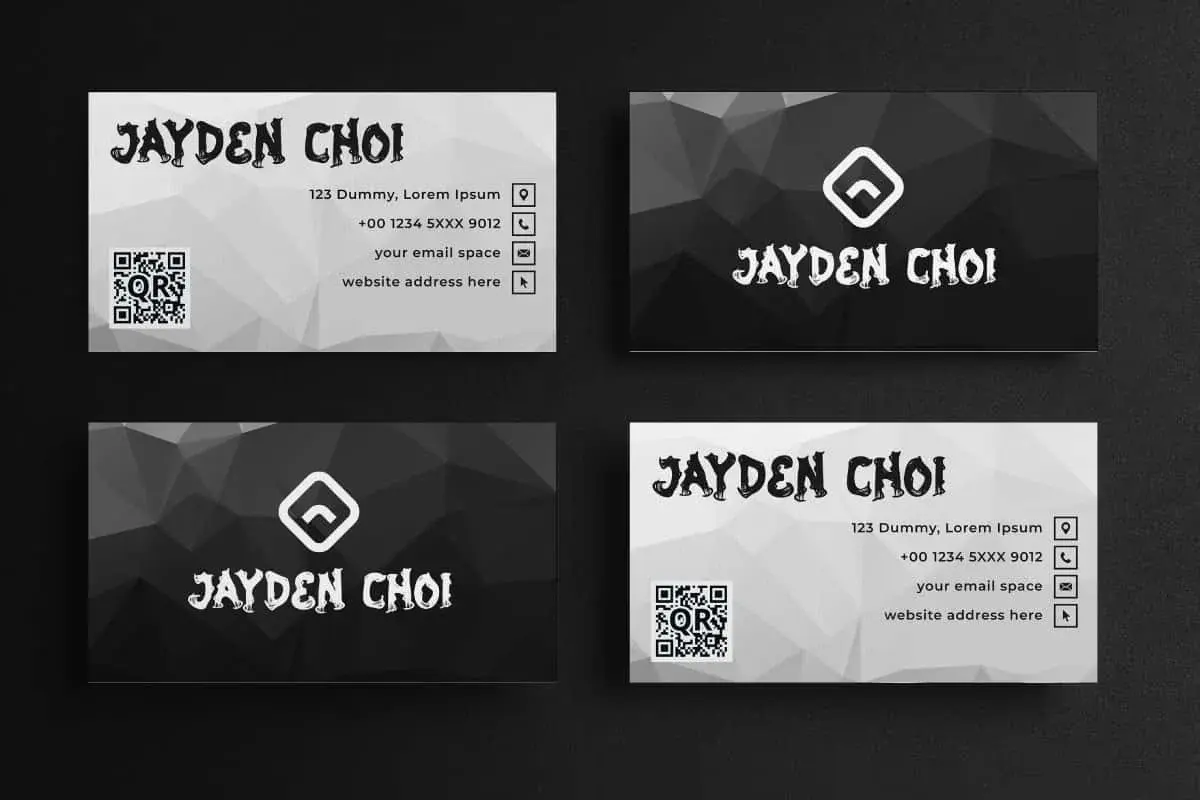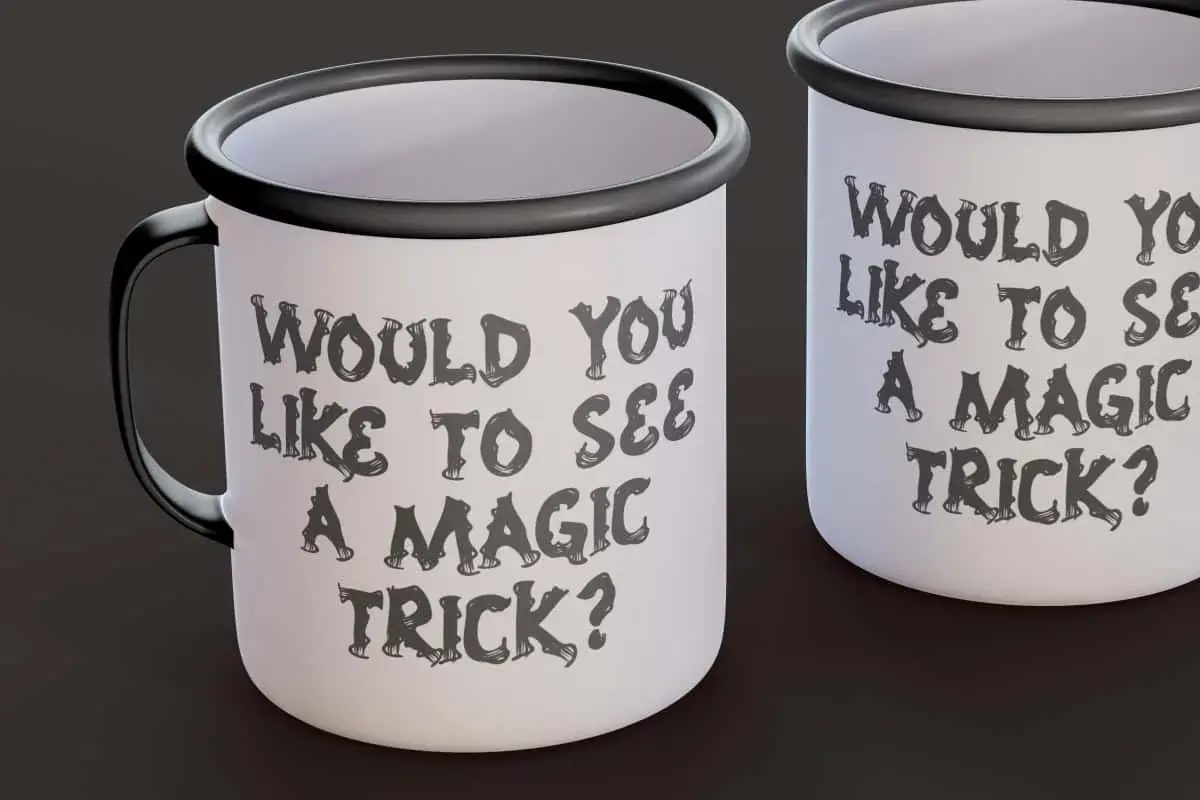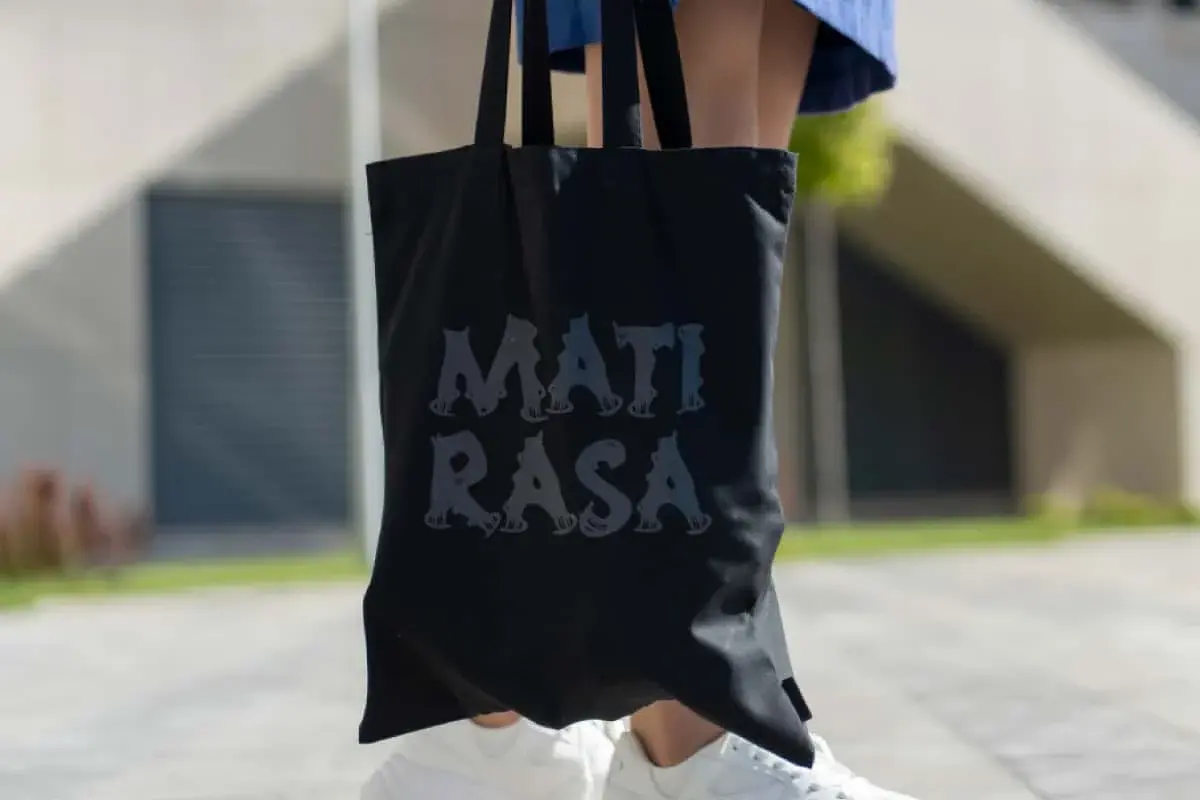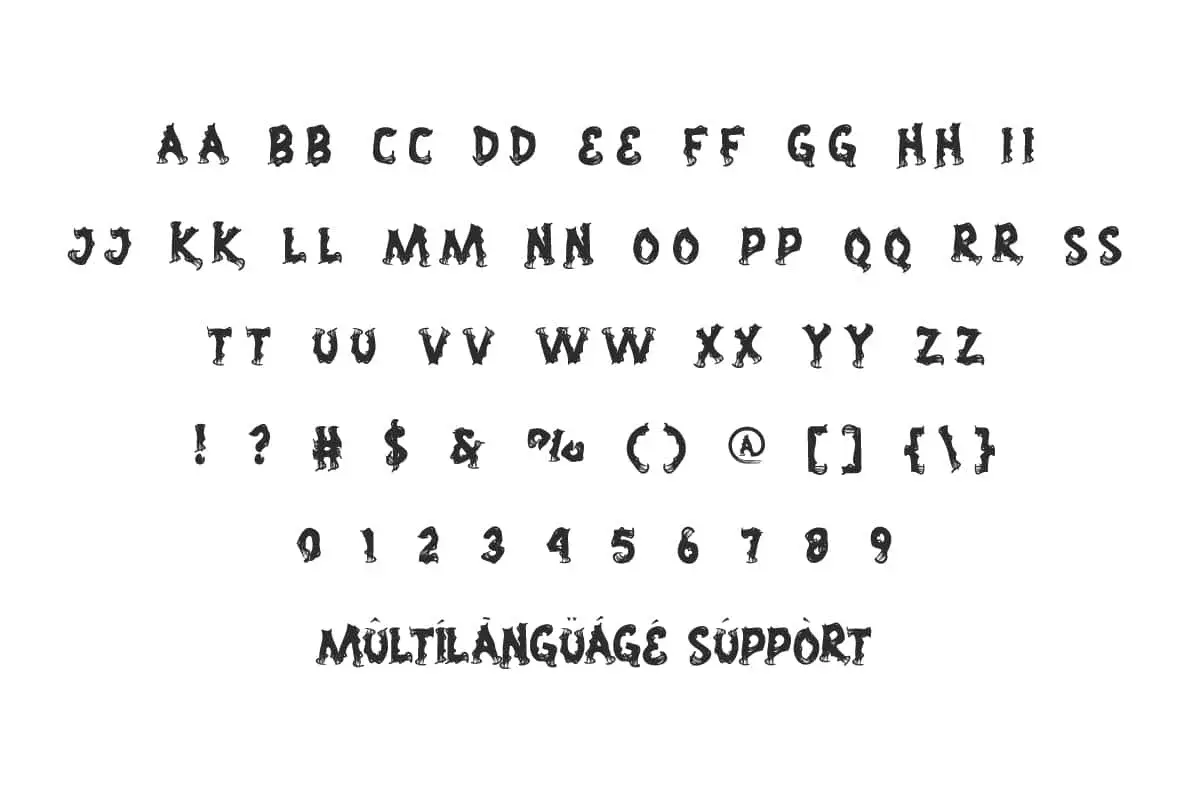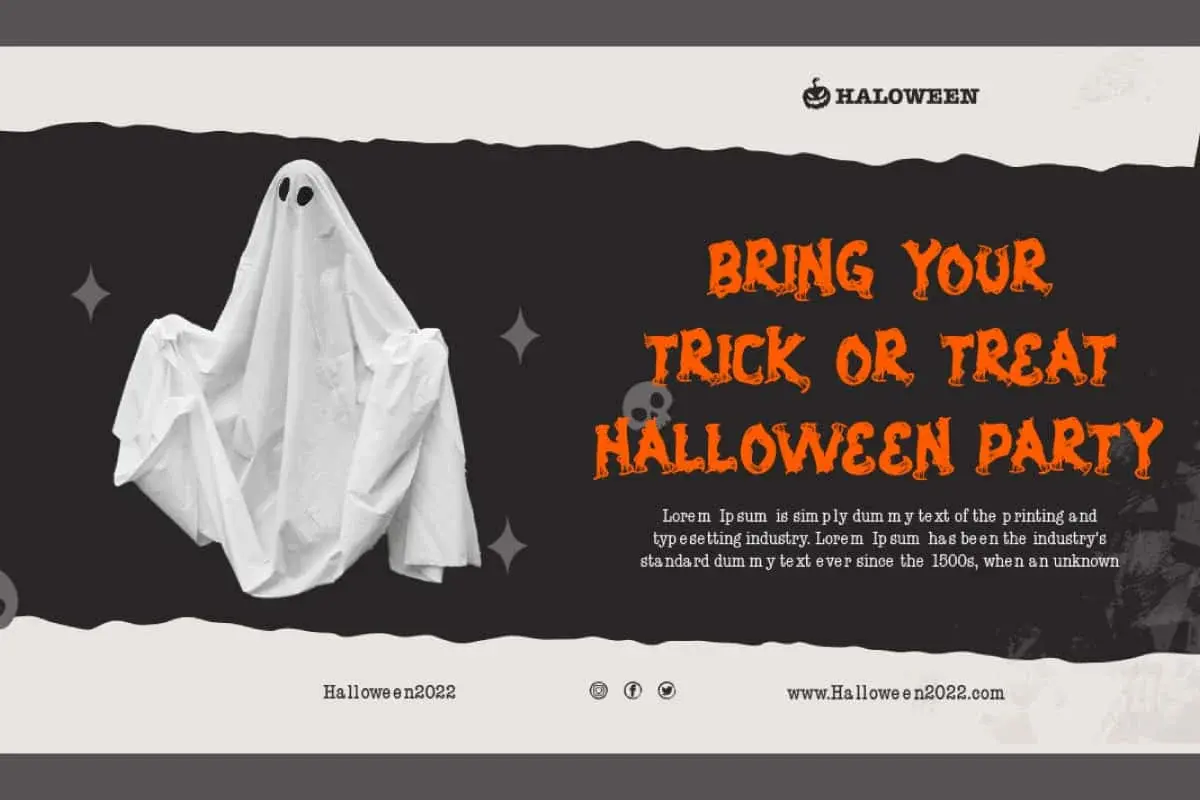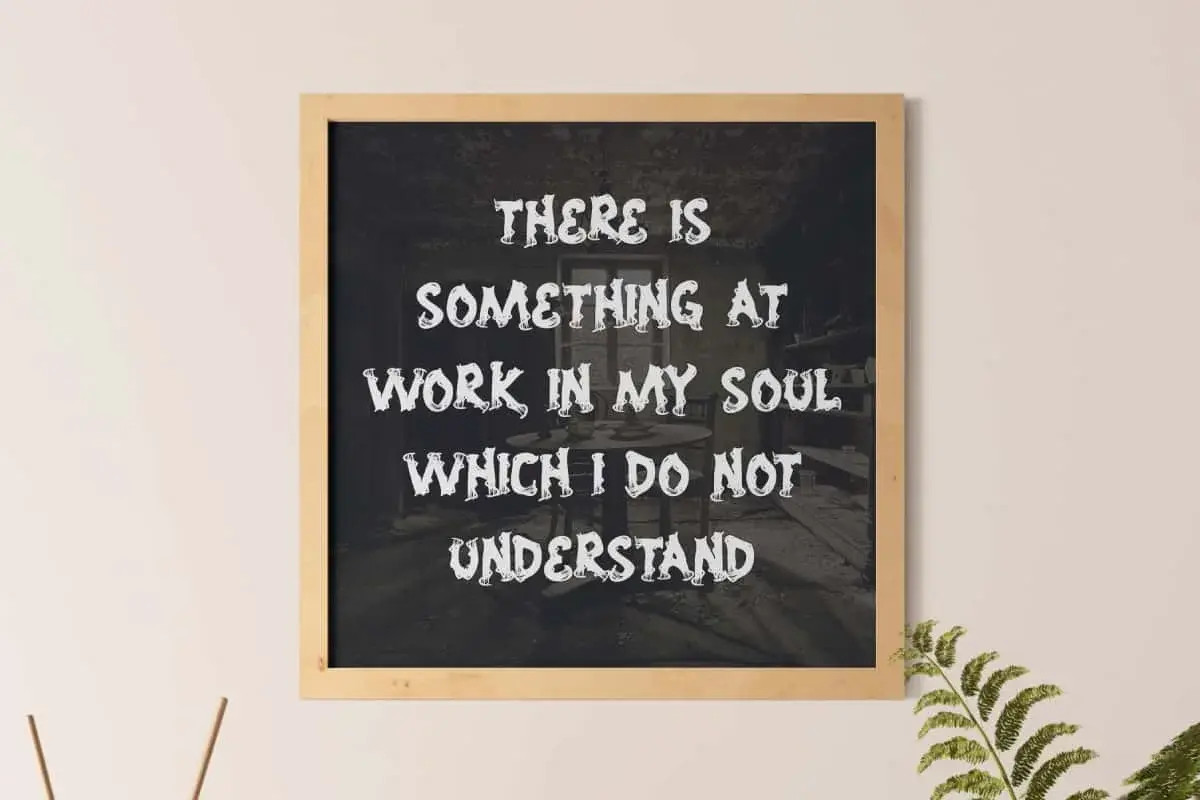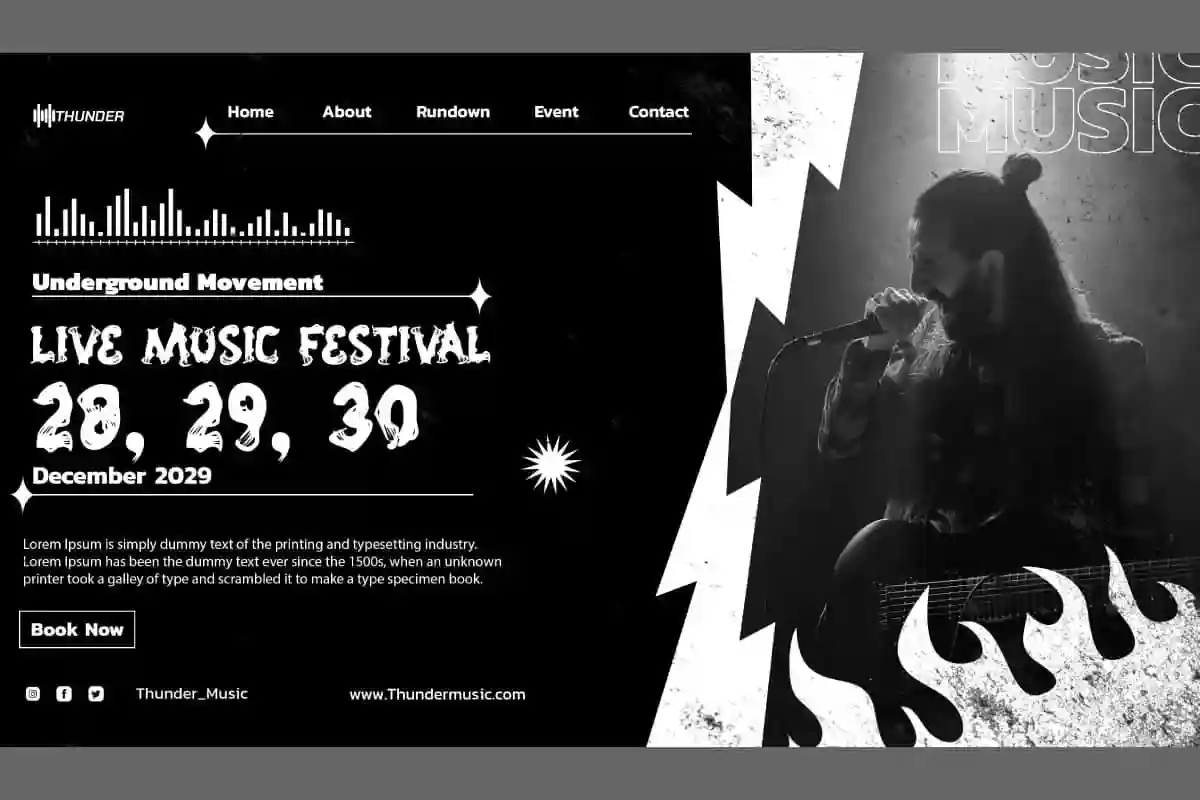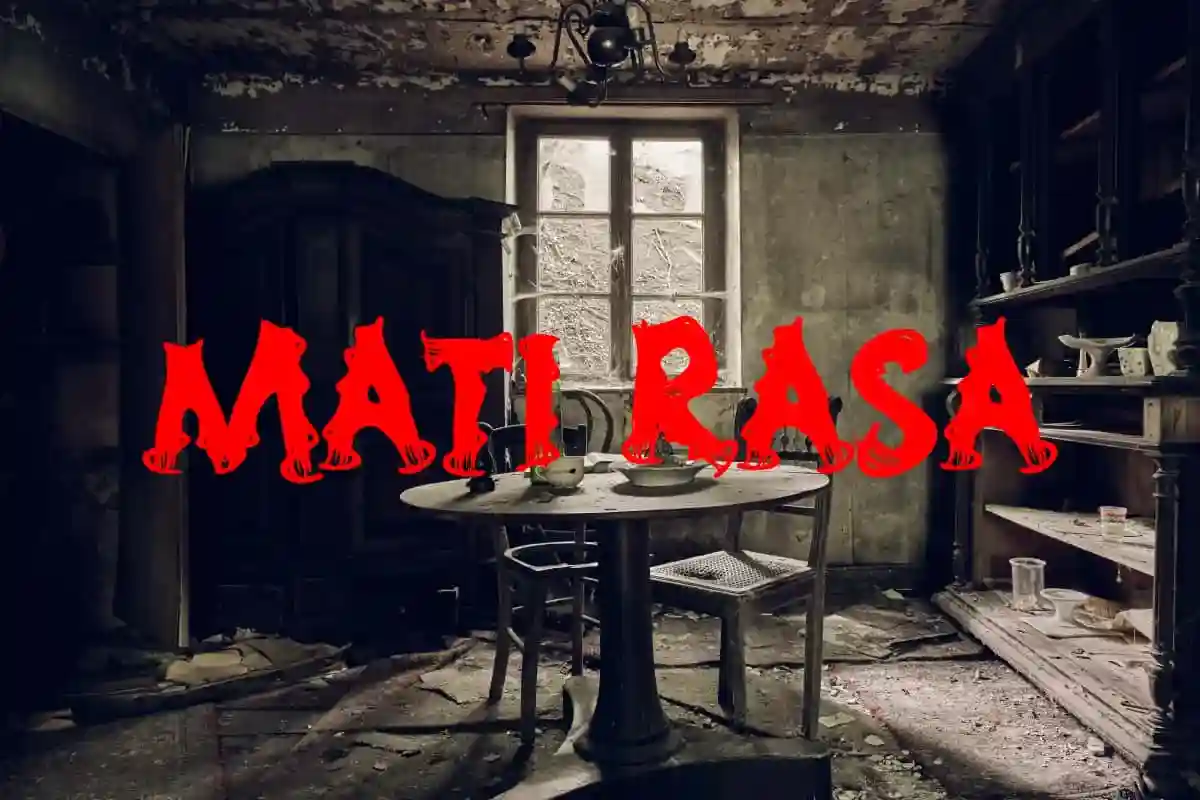
Mati Rasa Font is a bold and gripping typeface inspired by the dark and intense aesthetics of the death metal music genre. It will enhance the ferocity of your designs!
Mati Rasa Font is a horror display font that combines the power of negative energy with the brutal intensity of brush strokes. This font is the ultimate embodiment of metal brutalism that is boldly designed to make a fierce statement and personality. Perfect for banners, blogs, brand logo, brochure, business card, flyer, headline, invitations, poster, printed materials, signboard, stationery, title, website, and others.
Mati Rasa Font contains a complete set of ALL CAPS basic characters for both Uppercase and Lowercase, Numbers, Punctuation and Symbols. Suitable for works in both upper and lower case sizes, make this your top choice for an attention-grabbing font. With exclusive letter shapes where each character is carefully crafted to convey an aura of aggression and power. Perfect for entertainment, event organizer, fashion, graphic design, Halloween, handicraft, movie, music festival, photography, printing, publishing, themed cafes, and others.